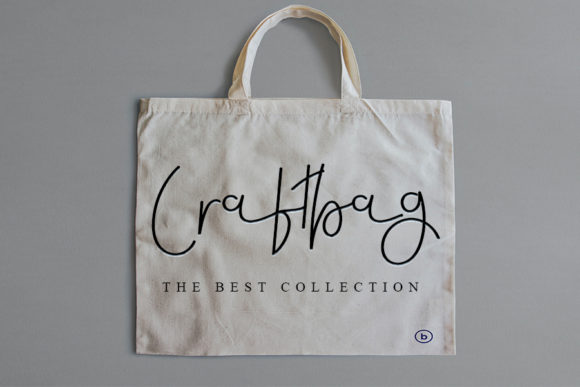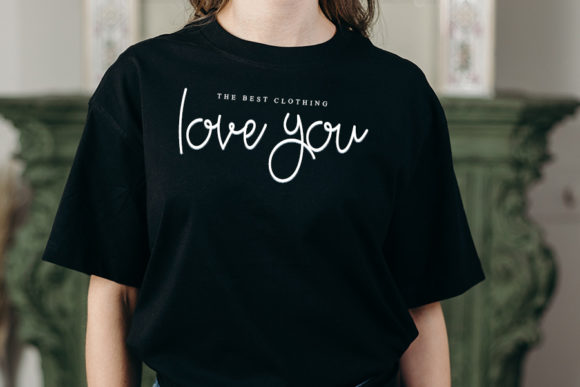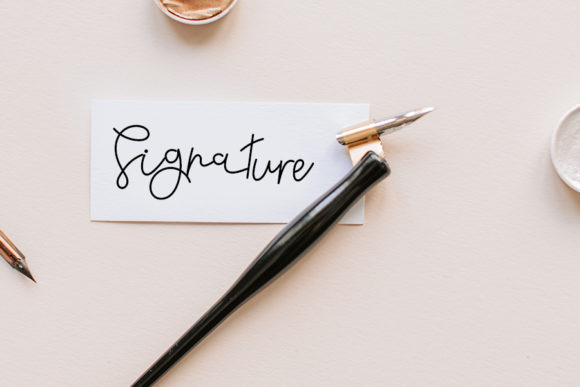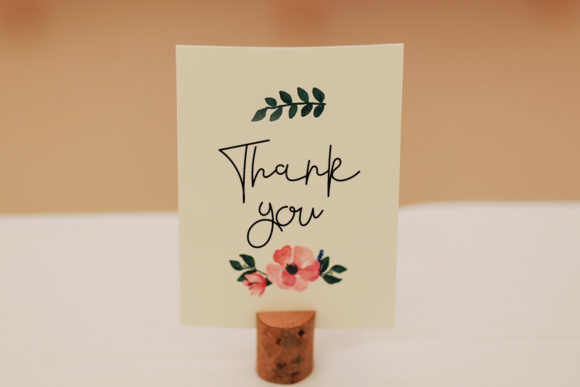
Introducing Handcraft Font: Elevate Your Designs with a Touch of Elegance
Are you a designer, crafter, or business owner looking for a font that can add a personal touch to your creations? Look no further than Handcraft Font, a stunning handwritten font that is perfect for a wide range of design needs. In this article, we’ll explore the features and benefits of Handcraft Font, and show you how it can elevate your designs to the next level.
What is Handcraft Font?
Handcraft Font is a beautiful, rich, and trendy handwritten font that is designed to add a touch of elegance and sophistication to your designs. With its unique and flowing script, Handcraft Font is perfect for creating eye-catching designs that stand out from the crowd. Whether you’re looking to create stunning clothes designs, mockups, apparel, logos, wedding invitations, or company brands, Handcraft Font is the perfect choice.
Key Features of Handcraft Font
- Unique and Handwritten Style: Handcraft Font features a unique and handwritten style that is perfect for adding a personal touch to your designs.
- Rich and Trendy: With its rich and trendy script, Handcraft Font is perfect for creating modern and stylish designs.
- Versatile: Handcraft Font is suitable for a wide range of design needs, including clothes designs, mockups, apparel, logos, wedding invitations, company brands, and more.
- Easily Readable: Despite its unique and flowing script, Handcraft Font is easily readable, making it perfect for body text and headlines.
Benefits of Using Handcraft Font
So why choose Handcraft Font for your design needs? Here are just a few benefits of using this stunning font:
- Adds a Personal Touch: Handcraft Font adds a personal touch to your designs, making them stand out from the crowd.
- Increases Brand Recognition: With its unique and memorable script, Handcraft Font can help increase brand recognition and build a strong brand identity.
- Perfect for Creative Projects: Handcraft Font is perfect for creative projects, such as designing clothes, mockups, and wedding invitations.
- Pair it with Other Fonts: Pair Handcraft Font with other fonts to create stunning contrast and visual interest.
- Use it for Headlines and Body Text: Use Handcraft Font for both headlines and body text to create a cohesive and stylish look.
- Experiment with Colors and Textures: Experiment with different colors and textures to add depth and interest to your designs.
In conclusion, Handcraft Font is a stunning handwritten font that is perfect for designers, crafters, and business owners looking to add a personal touch to their creations. With its unique and flowing script, rich and trendy style, and versatility, Handcraft Font is the perfect choice for a wide range of design needs. Whether you’re looking to create stunning clothes designs, mockups, apparel, logos, wedding invitations, or company brands, Handcraft Font is sure to elevate your designs to the next level.